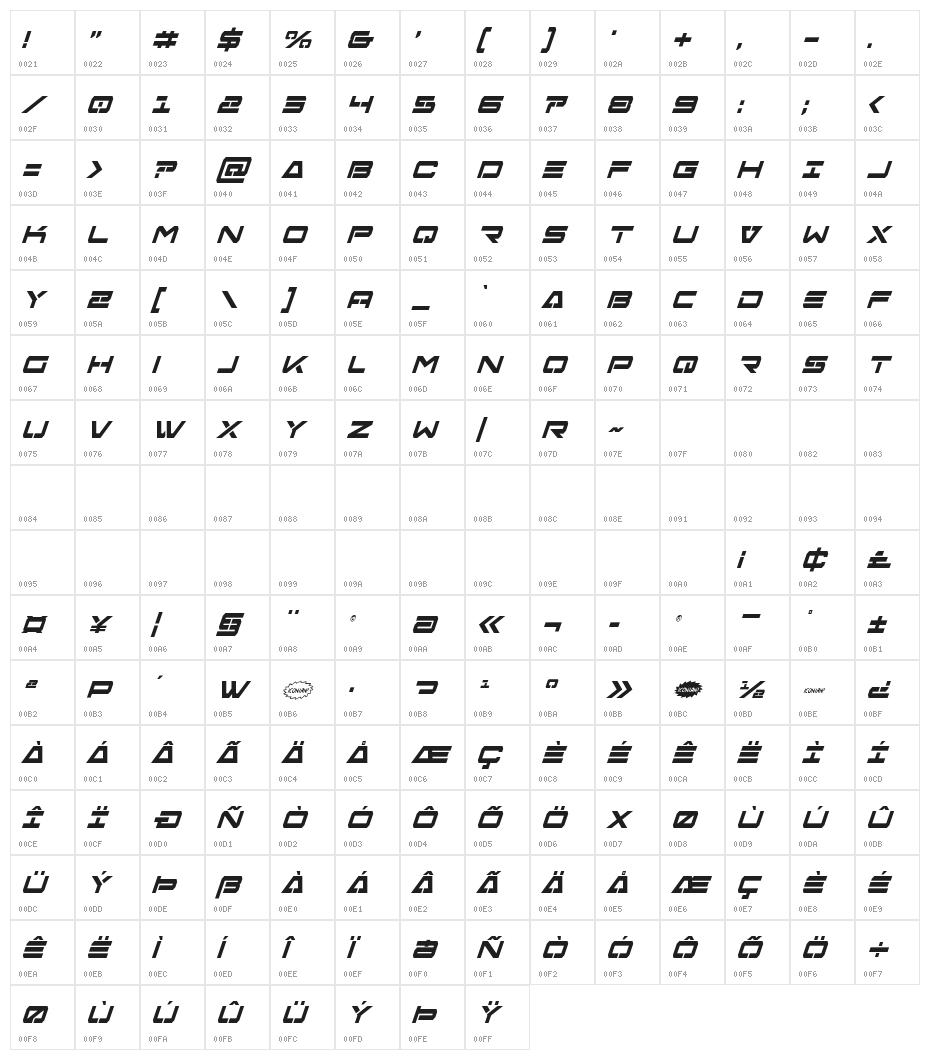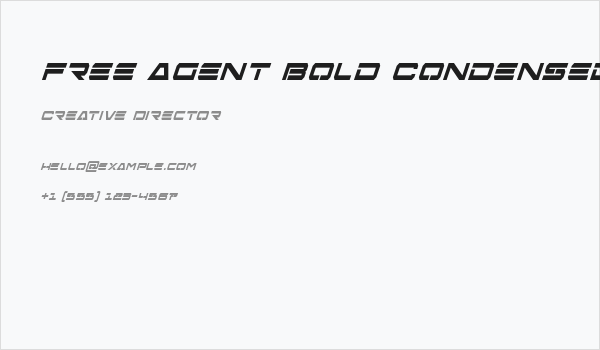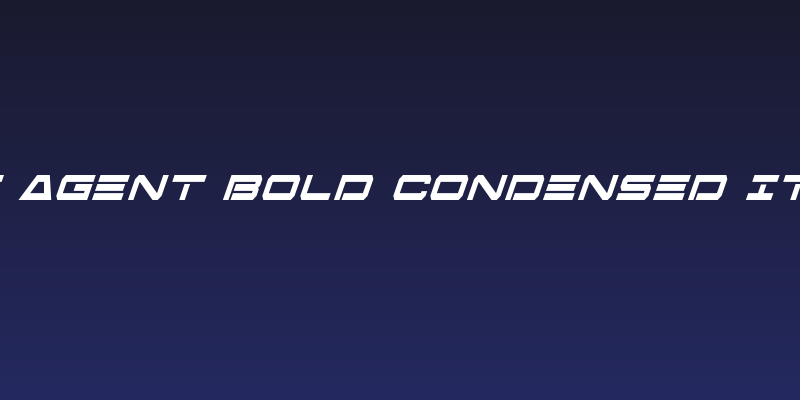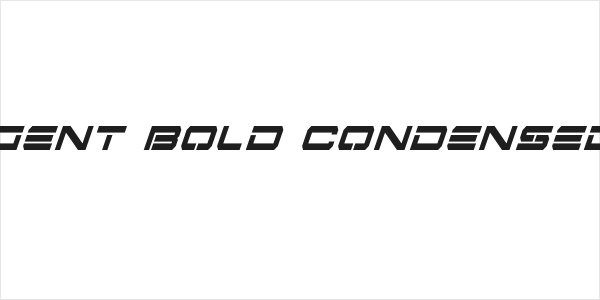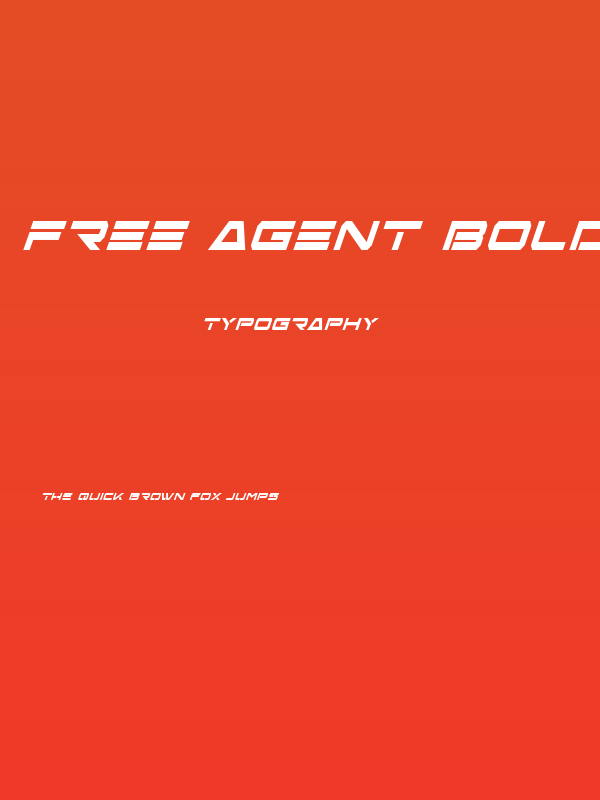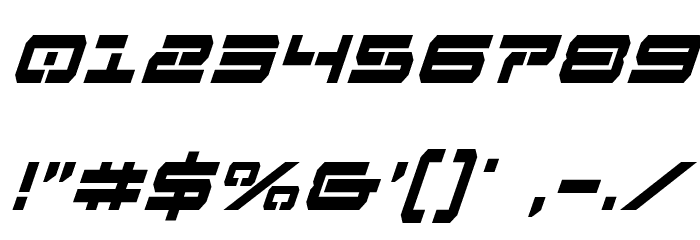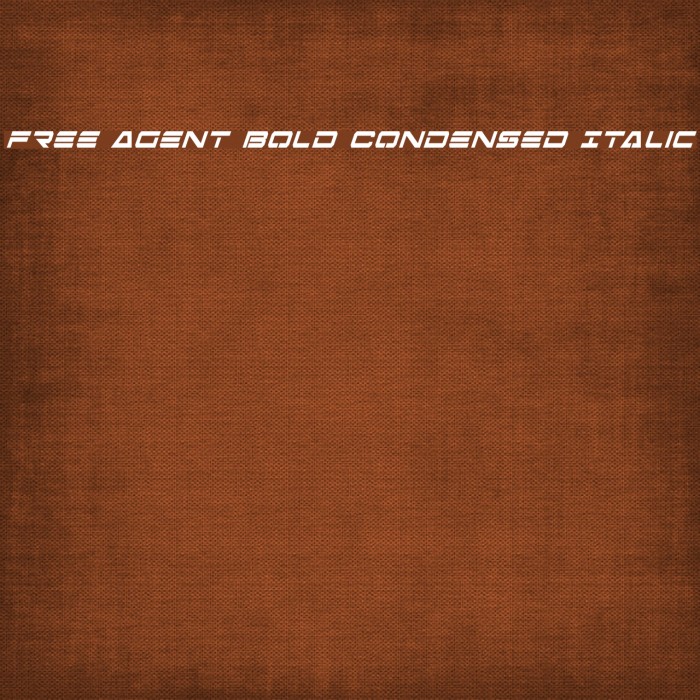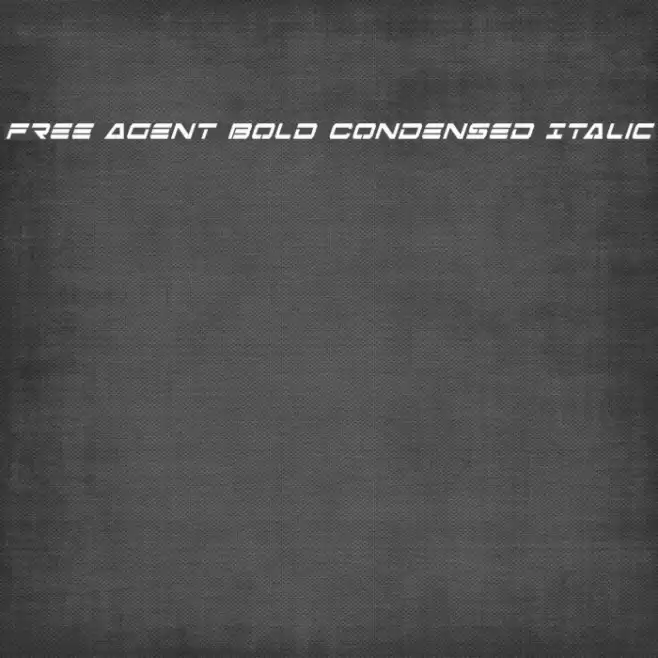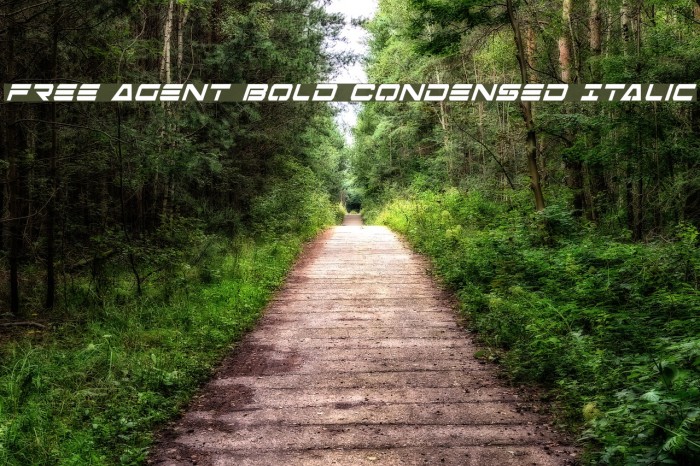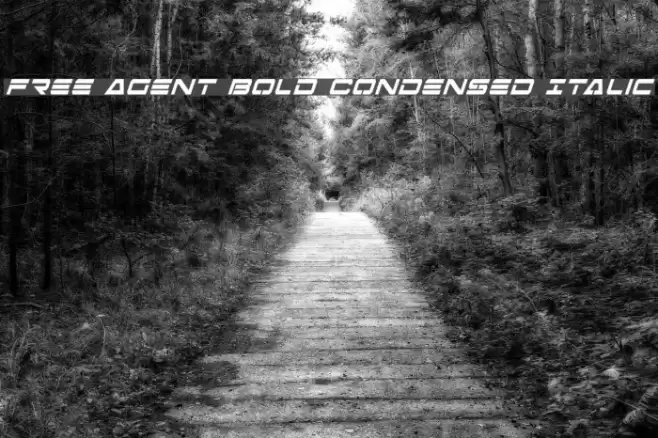
Free Agent Bold Condensed Italic Font
Free Agent Bold Condensed Italic Description
This font features a bold and condensed style with a distinct italic slant, giving it a dynamic and modern appearance. The characters are angular and sharp, with a futuristic feel that is enhanced by the consistent slant across all letters and numbers. The uppercase and lowercase letters maintain a uniform height, contributing to a cohesive look. The numerals are equally bold and follow the same angular design, ensuring readability while maintaining the font's unique style. Special characters are designed with the same attention to detail, making them seamlessly integrate with the rest of the font.
| Use Case | Logos, Headlines, Posters |
| Proposed Projects | Ideal for sports branding, tech-related projects, futuristic designs, and dynamic advertising materials. |